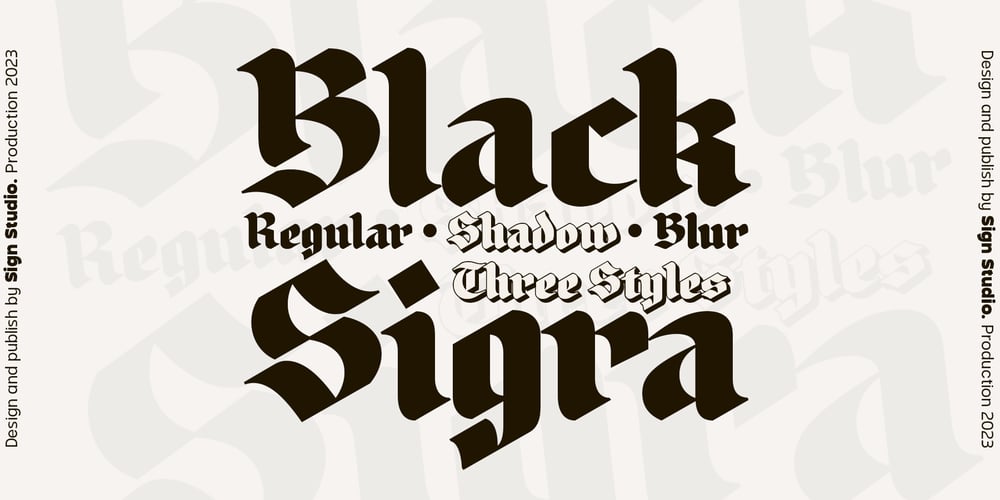
Black Sigra Font Family was designed by Sugi Yanto and published by Sign Studio. Black Sigra contains 3 styles and family package options. Black Sigra comes in 3 styles (regular, blur, and shadow) so it can be more versatile. Adapting to a simpler fracture calligraphy style. Has sufficient thickness to dominate a design page. Supports multiple languages and each character has a PUA code which means everything can be accessed on most common software.